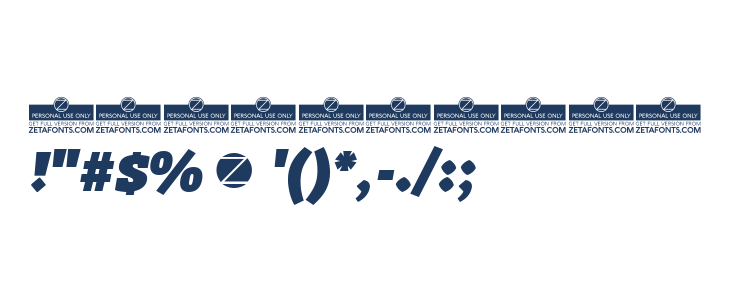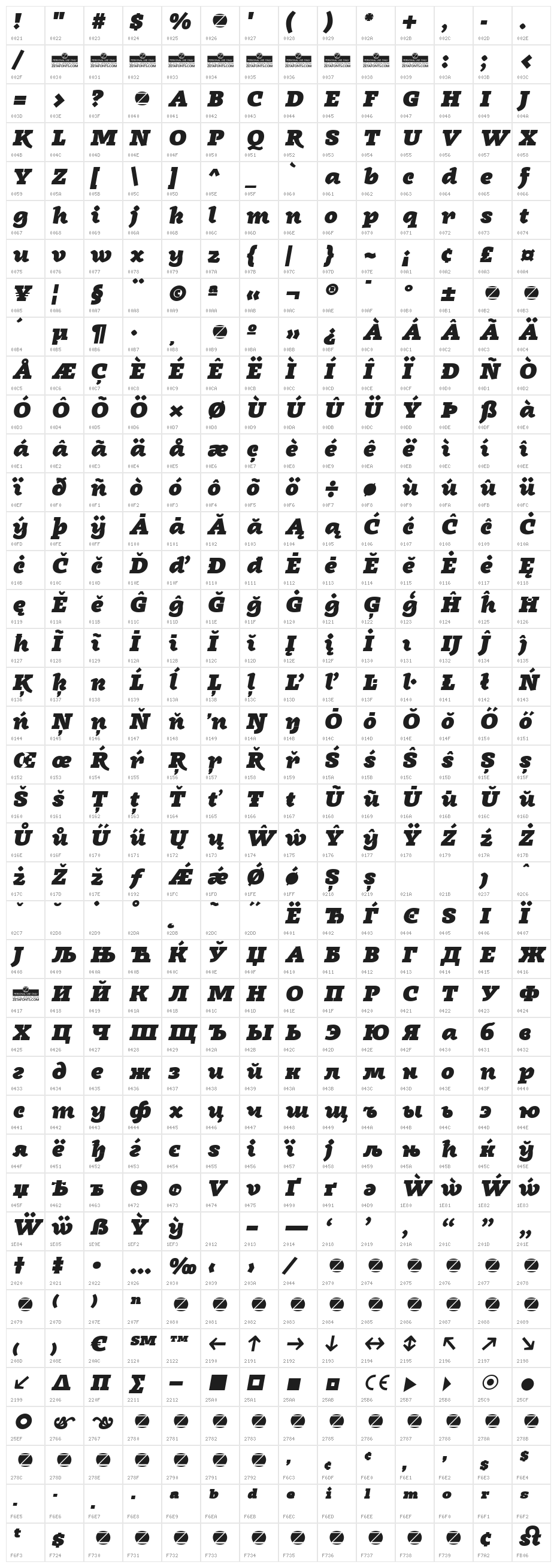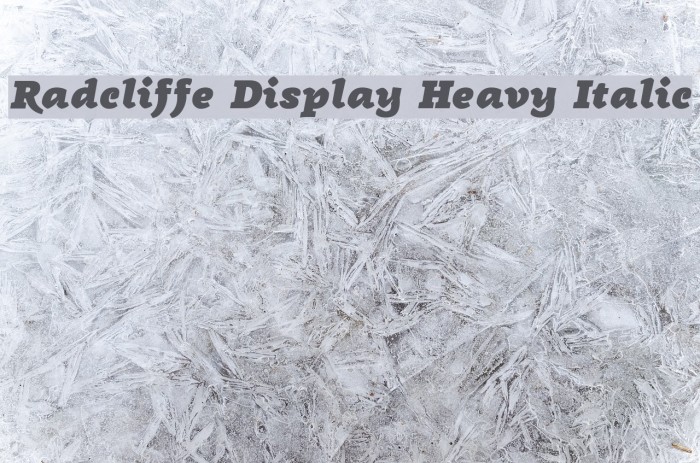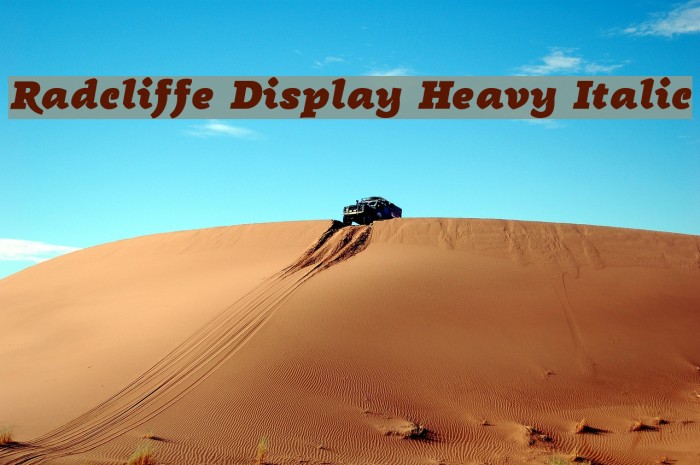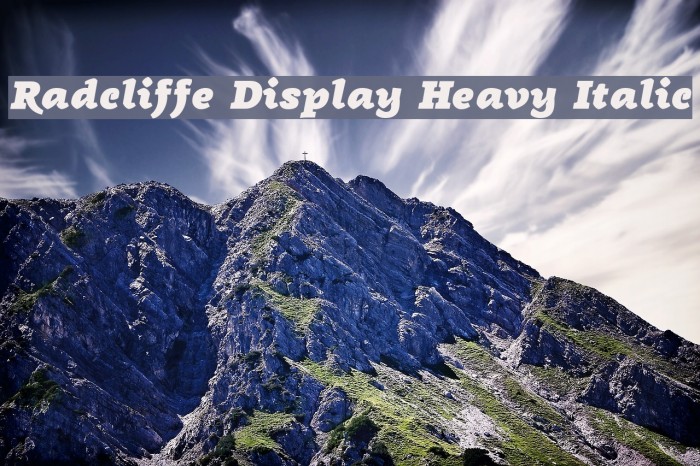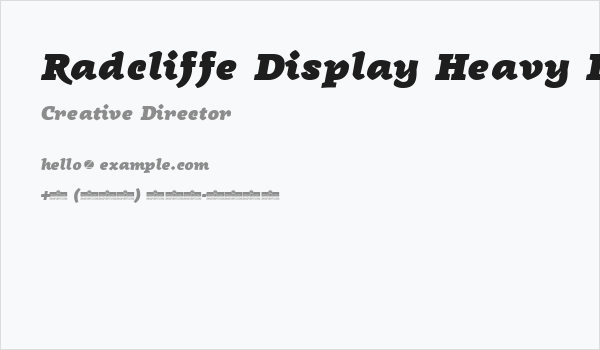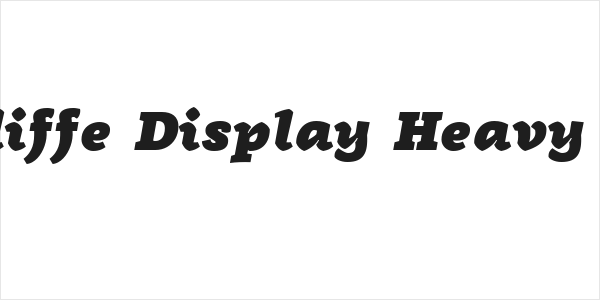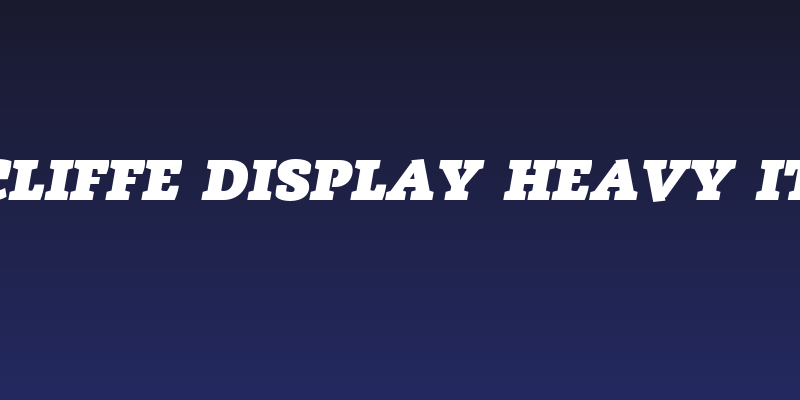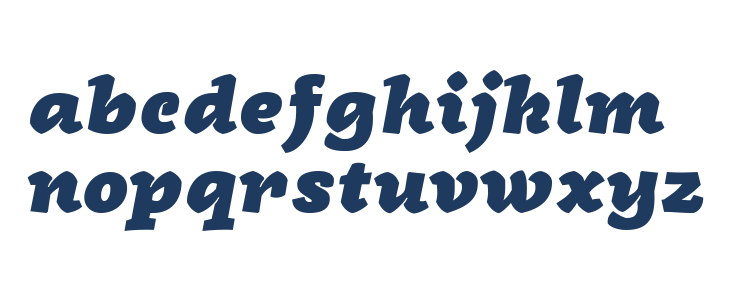
Radcliffe Display Heavy Italic Font
Radcliffe Display Heavy Italic Description
This font features a bold and dynamic style with a strong italic slant, creating a sense of movement and energy. The heavy weight of the characters gives it a commanding presence, making it ideal for attention-grabbing headlines and titles. The serifs are pronounced, adding a classic touch to the otherwise modern and robust design. The uppercase and lowercase letters maintain a consistent style, with rounded edges that soften the overall look. The numerals and special characters are designed to match the boldness and style of the alphabet, ensuring a cohesive appearance across all text elements.